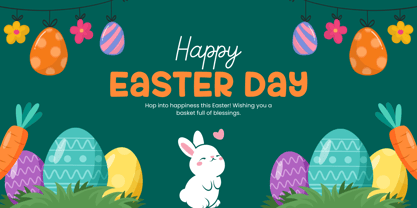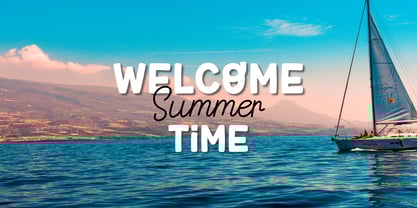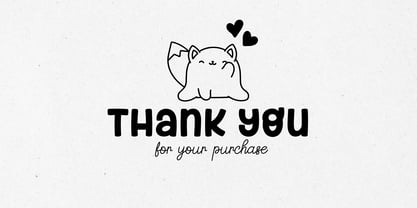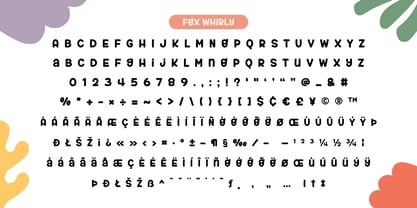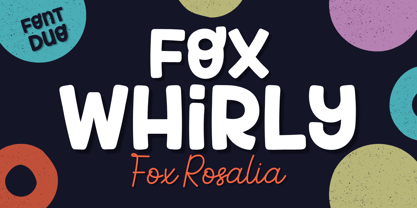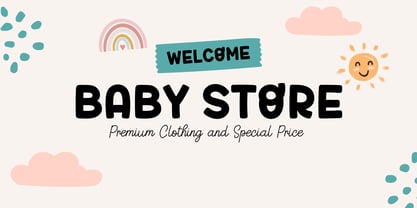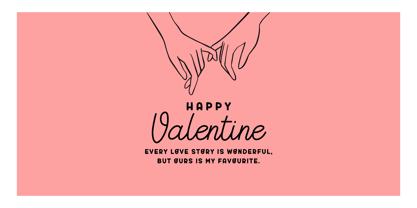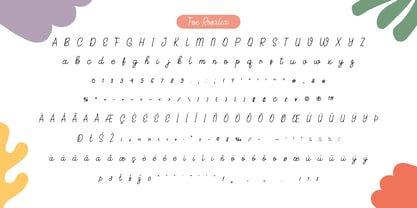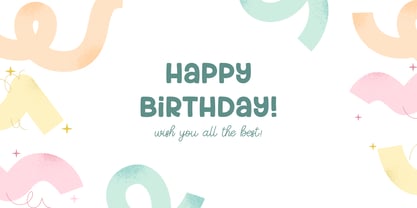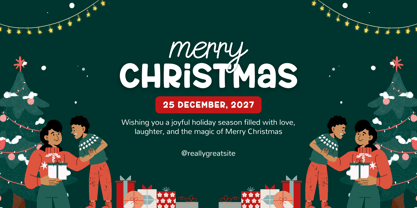
Fox Whirly & Fox Rosalia
by Fox7
The Fox Whirly & Fox Rosalia Font Family was designed by Rattana Rattanawan and published by Fox7. Fox Whirly & Fox Rosalia contains 2 styles and family package options. More about this family
Fox Whirly & Fox Rosalia – A Playful Font Duo
Bring joy and charm to your designs with Fox Whirly & Fox Rosalia, a delightful font duo that perfectly blends bold fun with handwritten elegance.
Fox Whirly is a chunky, whimsical display font full of personality. Its playful curves and rounded edges make it ideal for children's designs, greeting cards, packaging, and eye-catching headlines.
Fox Rosalia, on the other hand, adds a sweet, handwritten touch with its smooth script style. Perfect for adding warmth and a personal feel to your designs, from quotes to logos, invitations, and more.
Together, this duo creates a harmonious balance – bold yet soft, fun yet elegant. Whether you’re working on branding, merchandise, or social media graphics, Fox Whirly & Fox Rosalia will add a unique spark to your creative projects.
Designers: Rattana Rattanawan
Foundry: Fox7